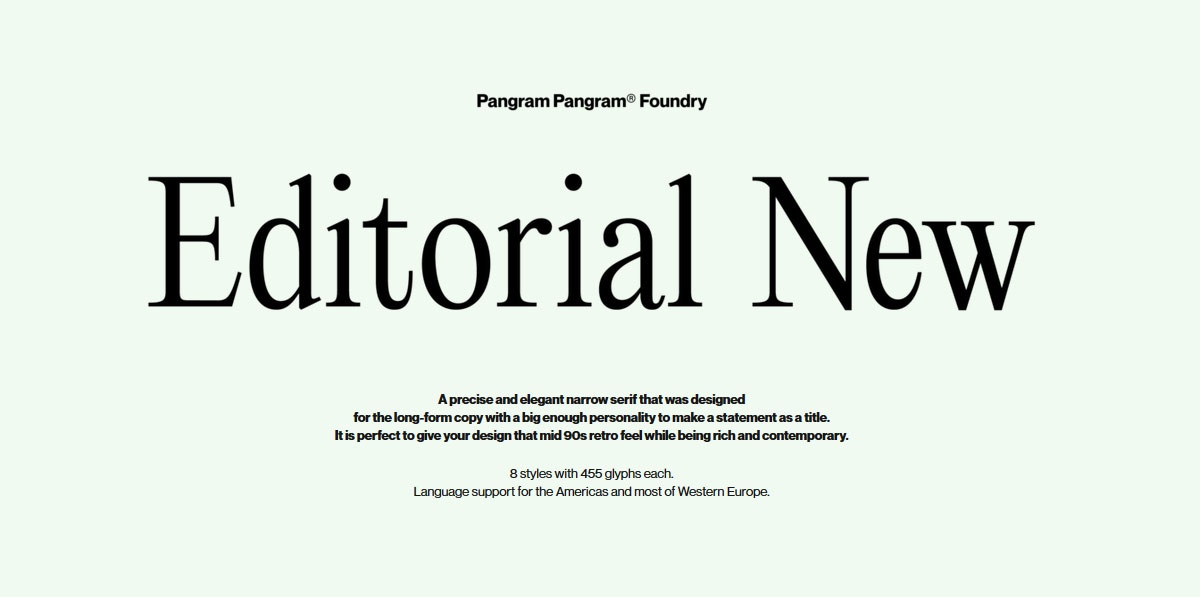
Editorial New Font
Editorial New Font is perfectly suited for contemporary magazine layouts, modern newspaper designs, digital publication interfaces, professional blog typography, online article formatting, editorial website headers, publishing house branding, journalism school materials, and sophisticated content management systems.
What makes Editorial New Font so exciting is its revolutionary approach to editorial typography that seamlessly bridges traditional publishing excellence with cutting-edge digital functionality through every precisely optimized letterform. This groundbreaking typeface embodies the evolution of editorial design with its refined character shapes and enhanced readability features that perform exceptionally across both traditional print media and modern digital platforms. The font's distinctive contemporary styling and editorial sophistication create an atmosphere of journalistic authority and publishing excellence that resonates with readers and publishers who demand the highest standards of typographic quality. Editorial New Font stands out through its ability to convey editorial credibility, publishing innovation, and journalistic integrity, making it perfect for projects that need to establish authority in media and publishing while ensuring optimal reading experiences across all contemporary communication platforms.
The Editorial New Font family includes Light, Regular, Medium, Bold, and Black weights, each available in both roman and italic styles for comprehensive editorial flexibility. The family also features small caps, old-style figures, and advanced typographic features that enhance the font's publishing appeal and provide complete solutions for sophisticated editorial design projects requiring professional typography standards.
The technical excellence of Editorial New Font includes comprehensive character sets supporting multiple languages, advanced OpenType features, and precision-engineered spacing optimized specifically for extended reading comfort across digital screens and traditional print media. The font maintains exceptional legibility at all sizes while providing the editorial sophistication needed for complex publishing systems that require seamless integration across diverse media platforms.
Whether you're designing digital publications, creating editorial brand identities, developing content management interfaces, or building comprehensive publishing systems that demand editorial excellence and contemporary functionality, Editorial New Font delivers the perfect combination of publishing tradition and digital innovation that ensures your editorial projects remain professionally compelling and typographically superior for modern media audiences.